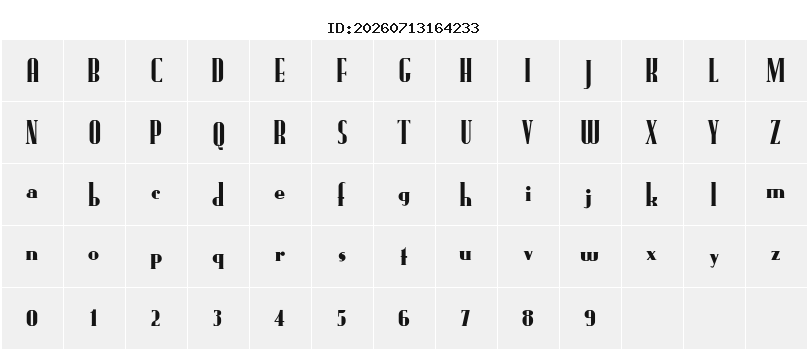
Bandabunk Preview
About Bandabunk.ttf
Bandabunk.ttf is a modern, elegant sans-serif font designed for ultimate readability and visual harmony. Perfect for branding, headlines, web design, and print materials.